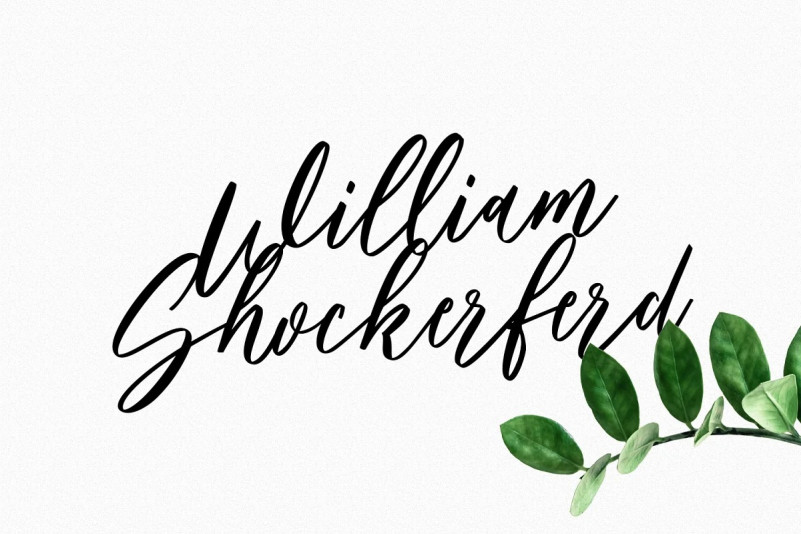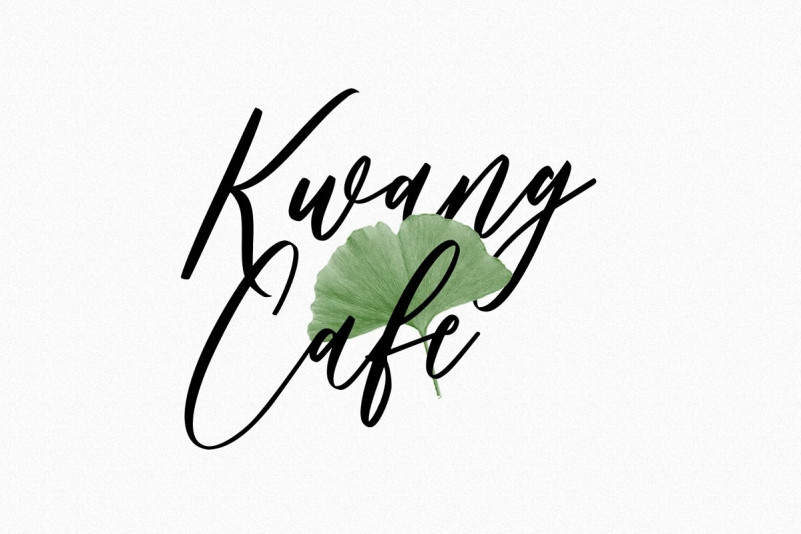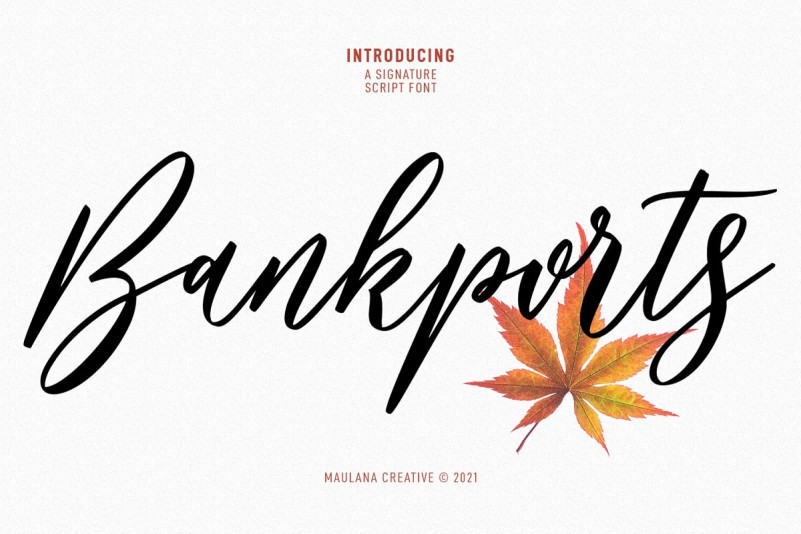
Bankports Font
Bankports Script Font is a slanted signature script font. With high contrast stroke, fun character with a bit of ligatures. To give you an extra creative work. Bankports font support multilingual more than 100+ language. This font is good for logo design, Social media, Movie Titles, Books Titles, a short text even a long text letter and good for your secondary text font with sans or serif. Make a stunning work with Bankports font.